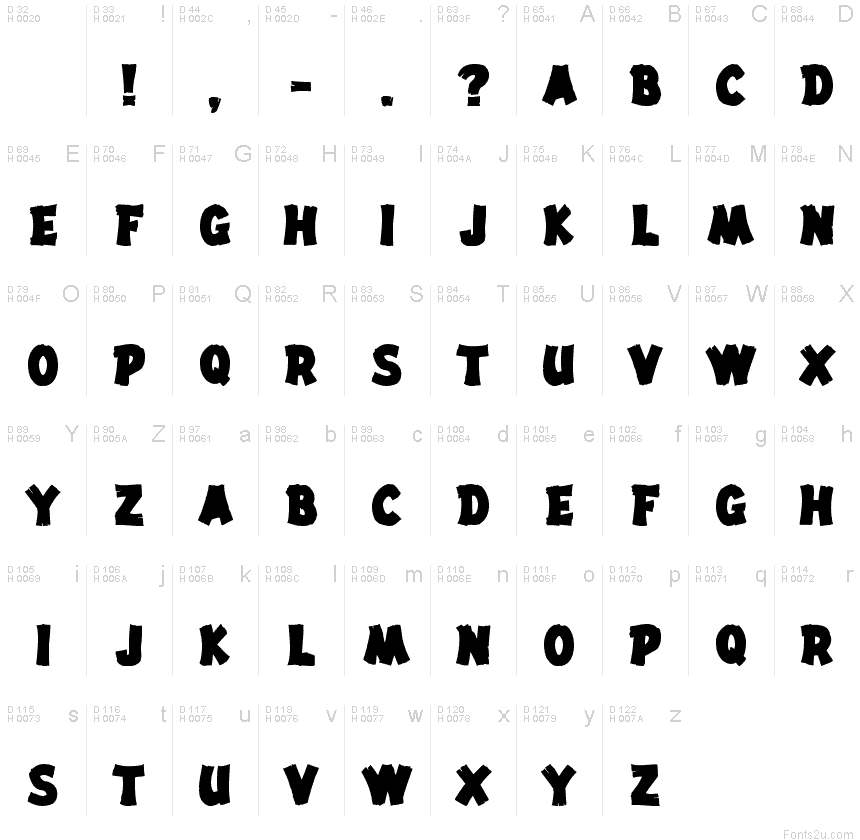
DriftType Solid by WhoAmI of TracerTong is a free cartoon display font built from hefty, irregular caps. Its blunt shapes lean and bulge in different directions, with uneven edges that suggest lettering cut quickly by hand. The broad silhouettes feel rowdy and comic rather than polished or carefully controlled.
Cartoon and comic styling makes it a natural fit for children's entertainment, comedy posters, and lively game graphics. It also suits snack packaging and casual merchandise. In those settings, the crooked letterforms can become part of an illustrated sign, playful mascot badge, or rough-cut game logo instead of serving as neutral type.